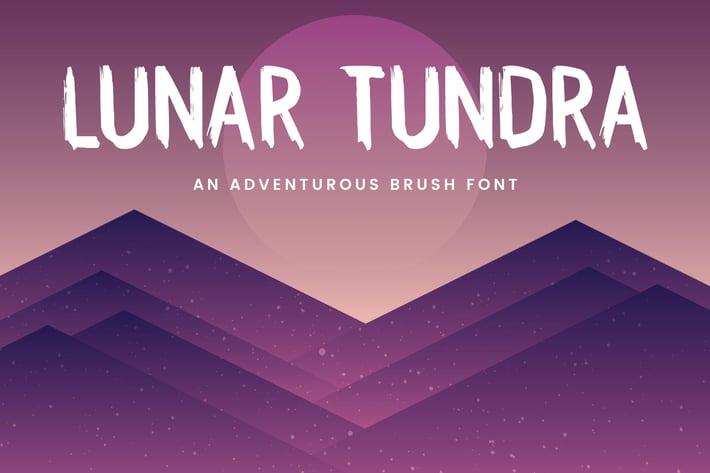
Lunar Tundra Brush Font
Lunar Tundra is a unique all-caps brush font that could be used in a variety of ways. The textured, hand-drawn style works well with nature clothing, adventure posters, travel social media, country weddings, or other wilderness designs. You could even try some spooky colors and using it for Halloween.